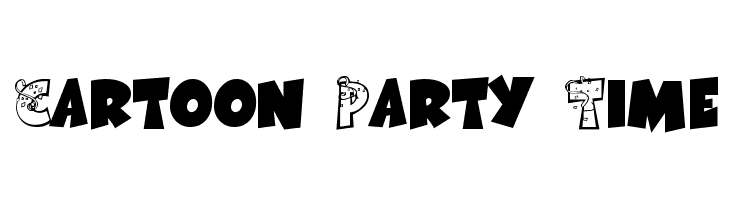
( Fadhil Aqsa - creativemarket.com/Meutuwah )
A whimsical and elegant script font with decorative swirls and fluid cursive forms.
( Fonts by www.blambot.com )
A bold, angular font with a dynamic, slanted style.
A bold, 3D-effect font with a retro, geometric style.
( Fonts by Ben Weiner - www.readingtype.org )
A bold, oblique font with a modern and dynamic style.
( Fonts by Caffeen Fonts - www.swank.ca/caffeen/fonts/ )
A futuristic, bold, and slanted font with geometric shapes.
( Zetafonts - www.zetafonts.com )
A bold, italicized font with a heavy weight and dynamic style.
A bold, dynamic font with a playful, hand-drawn style.
A modern, geometric sans-serif font with a clean and professional appearance.
A whimsical, decorative font with playful serifs and elegant curves.
( Fonts by Subectype & Orenari )
A playful, bold font with rounded, bubbly characters perfect for informal designs.
( Lutz Baar - baar.se/aidfonts/ )
A bold, rounded font with a friendly and modern appearance.
A bold, geometric sans-serif typeface with a modern and assertive style.
A lively, bold script font with interconnected, flowing letters.
A playful, double-line decorative font with a hollow effect.
( Fonts by Khurasan )
A playful, hand-drawn font with rounded, bubbly characters.
A bold, dynamic font with a slanted, energetic style.
( Fonts by Hatf Type )
A bold, playful font with a whimsical, festive style.
( Fonts by Paul Reid - tracertong.co.uk )
A bold, decorative font with star patterns in each character.
A bold, modern font with geometric shapes and consistent stroke widths.
( Fonts by Cat.B )
A dynamic cursive script font with bold, flowing strokes and elegant connections.
( Fonts by Andris Csanyi )
A modern, rounded font with consistent stroke width and approachable design.
( Archetype )
A playful, modern font with rounded edges and a smooth flow.